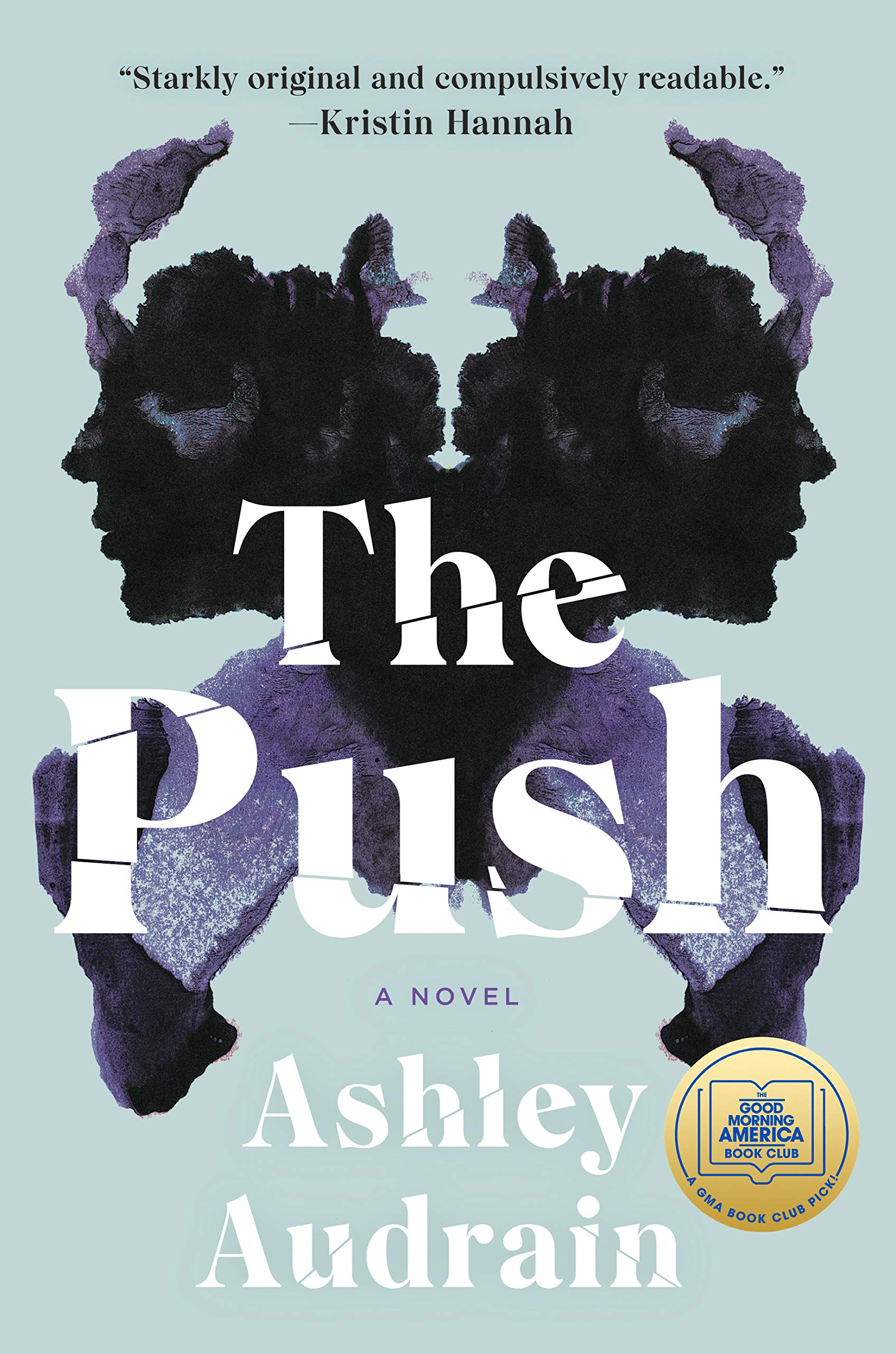
The Push Font
BookThe Push is a story about one woman's journey through motherhood written by Canadian writer Ashley Audrain. It tells the story of Blythe, a young mother who is struggling to bond with her newborn daughter, Violet. The novel explores the dynamics of motherhood, mental health, and the repercussions of silencing women's voices.
The book cover's serif resembles Wulkan Display designed by Jan Estrada-Osmycki. The Wulkan typeface is a modern interpretation of classic typefaces and is available in six weights with accompanying italics.